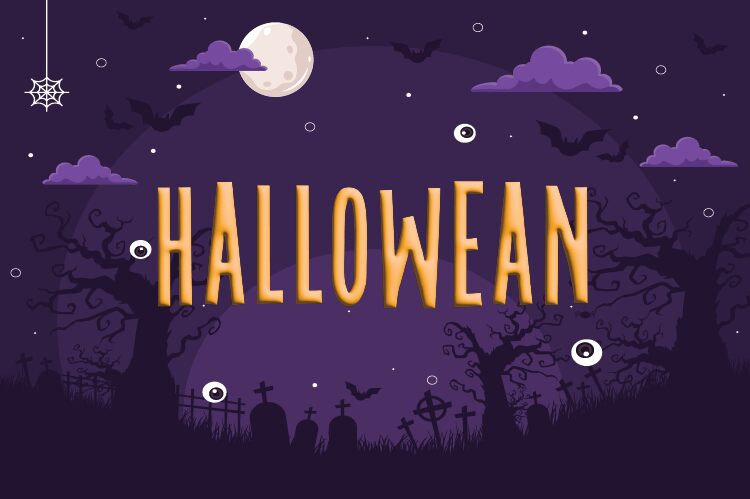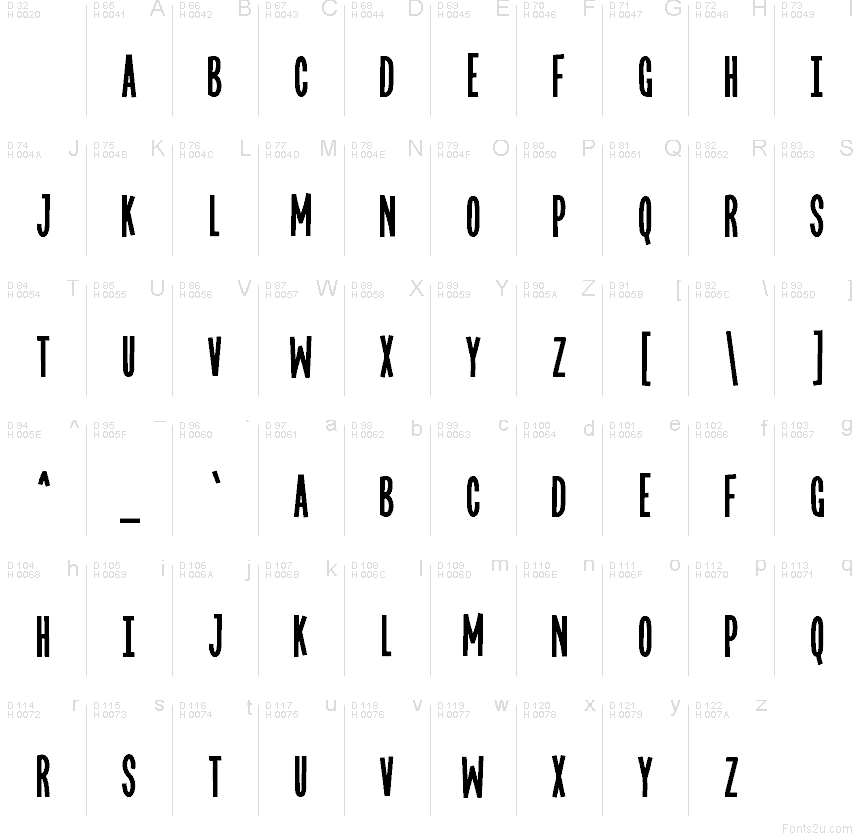
Hallowean
Hallowean font by HannaBie Creative Studio is a free Halloween holiday typeface with a tall, stretched silhouette that feels like it’s creeping up from the shadows. The letters are narrow, inky, and slightly irregular, as if hand-cut from black paper, giving every word a spooky, off-kilter energy. It reads clearly even at a distance, while still keeping that scratchy, haunted-house vibe that sets the mood instantly.
Using Hallowean, your titles snap into character without any extra graphics—just big, bold type. This free font shines on Halloween party posters, trick-or-treat flyers, haunted attraction signage, event tickets, YouTube thumbnails, and social media promos. It also works beautifully on themed merch like tote bags or treat bags. For a clean, readable combo, pair Hallowean for headlines with a simple geometric sans serif for body text.